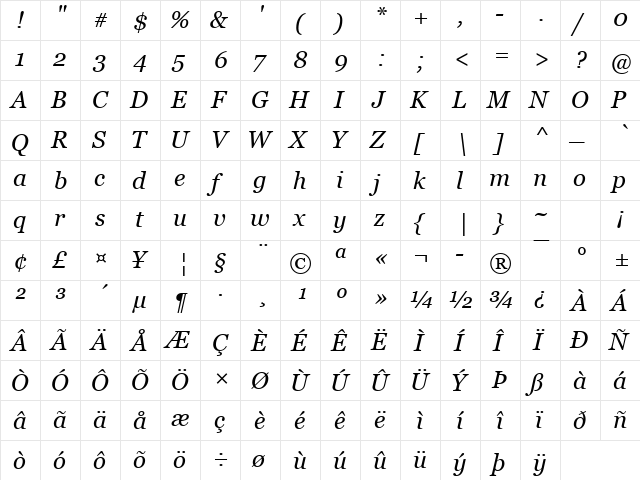
MS Reference Serif Italic
Italic · Microsoft Corp. Matthew Carter ·
Foundry Microsoft Corp.
FoundryMicrosoft Corp.
DesignerMatthew Carter
Design Context for MS Reference Serif Typeface
MS Reference Serif brings classic typographic sensibility to the table — its serifs and measured letterforms reflect centuries of print heritage. Its italic angle brings a sense of urgency and motion to the letterforms.